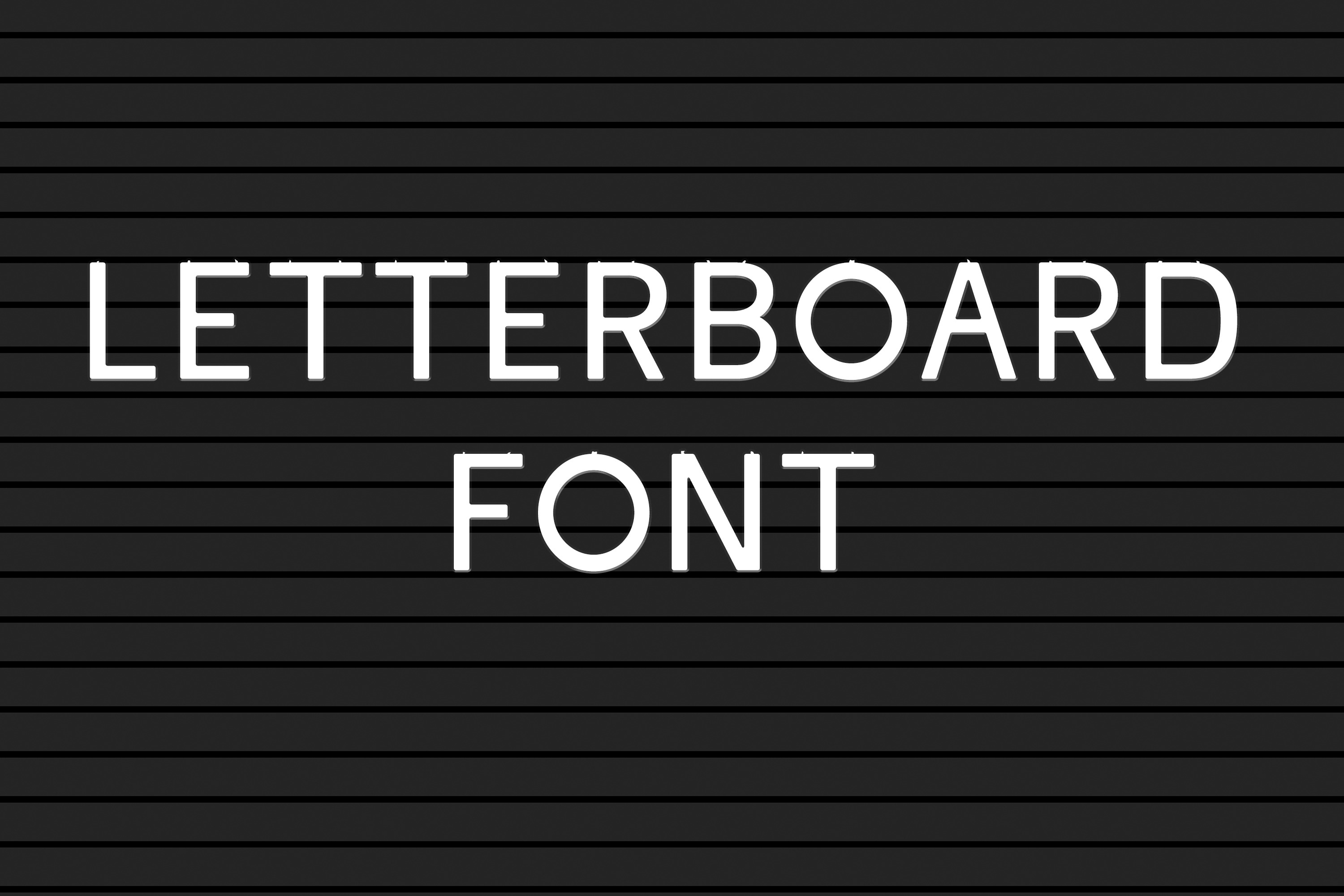
Letter board Font and Background
Letterboard Font:
- Upper case letters have break off tabs - lower case letters do not
- Extras heart, smiley face, "love" and "family" in script font